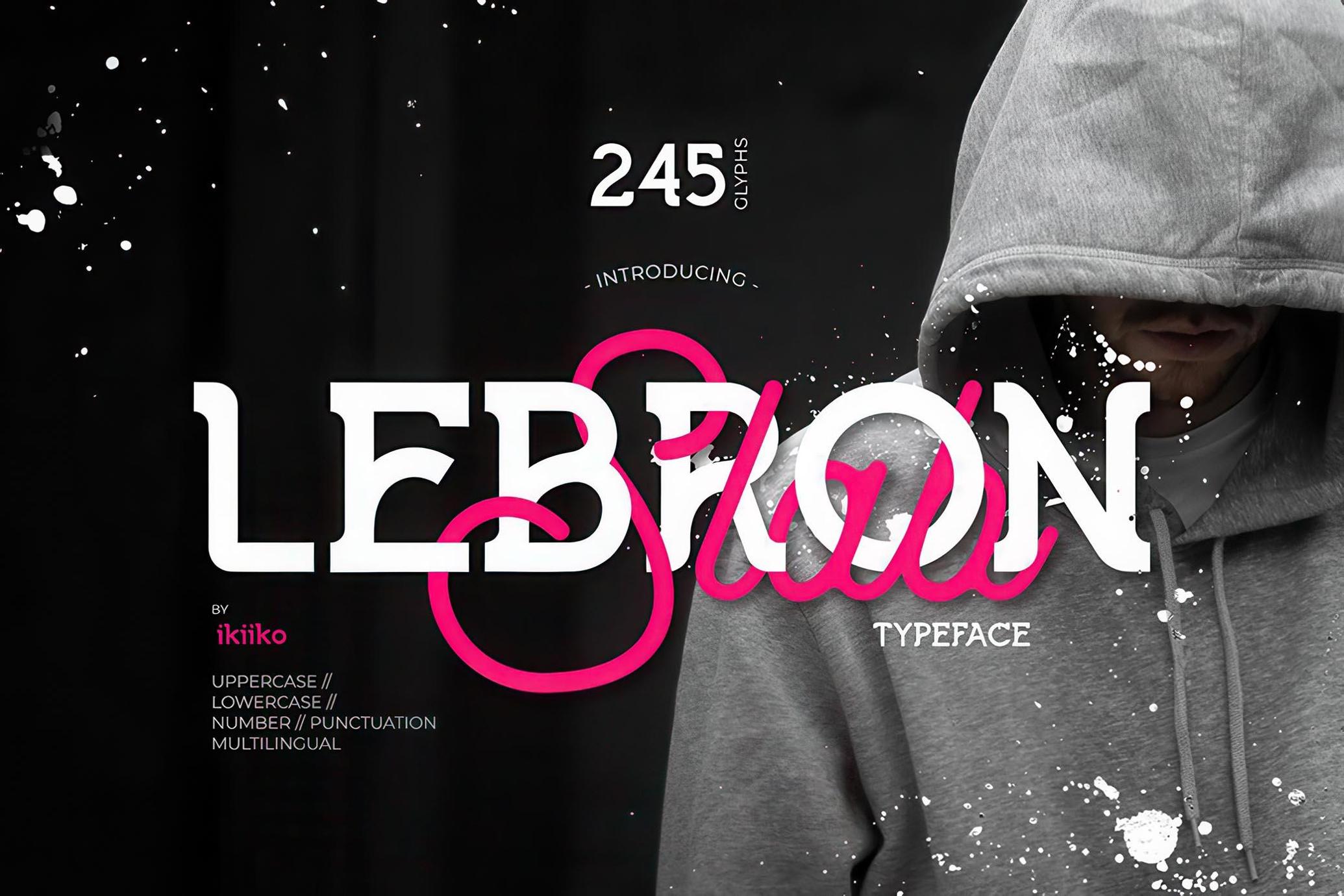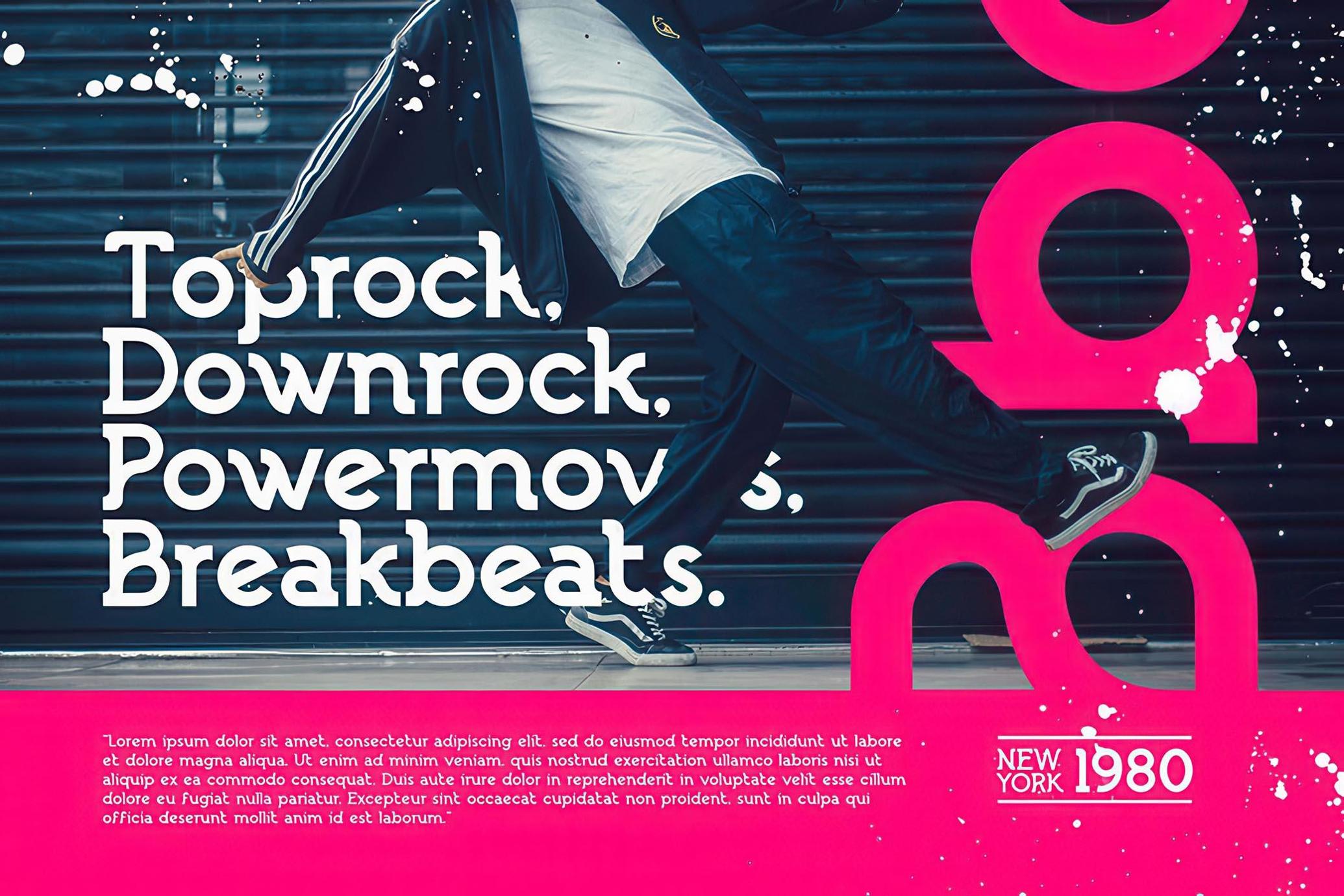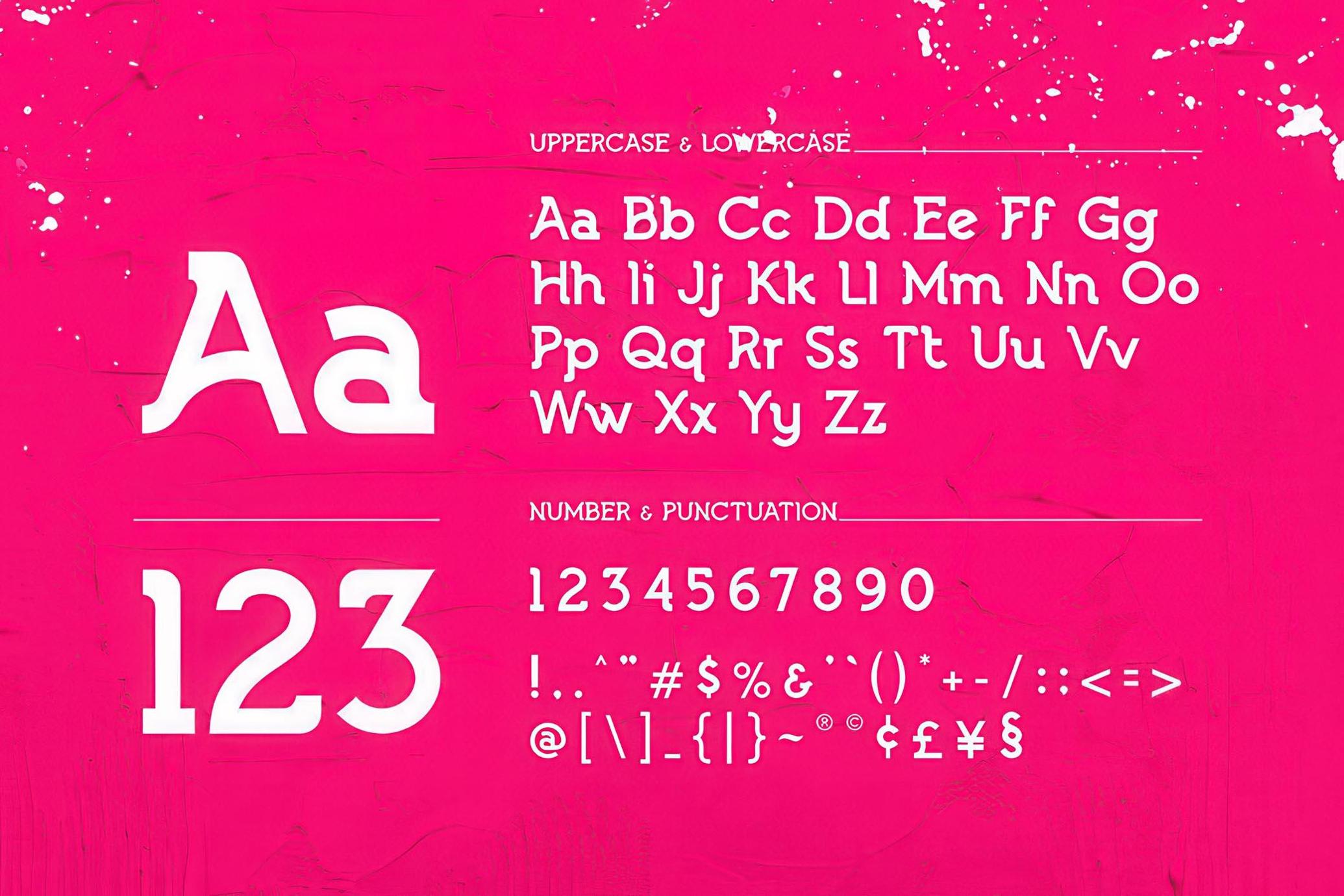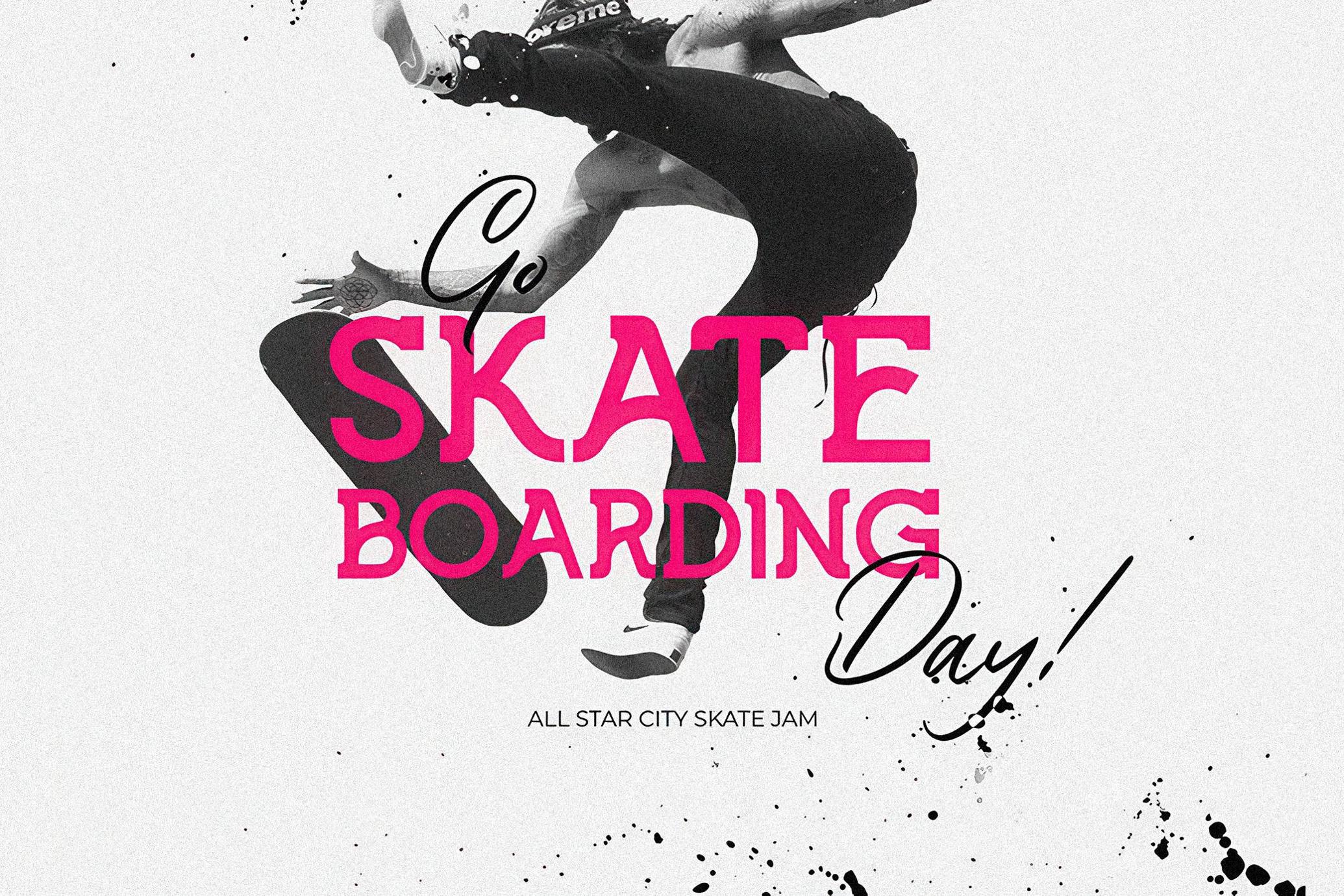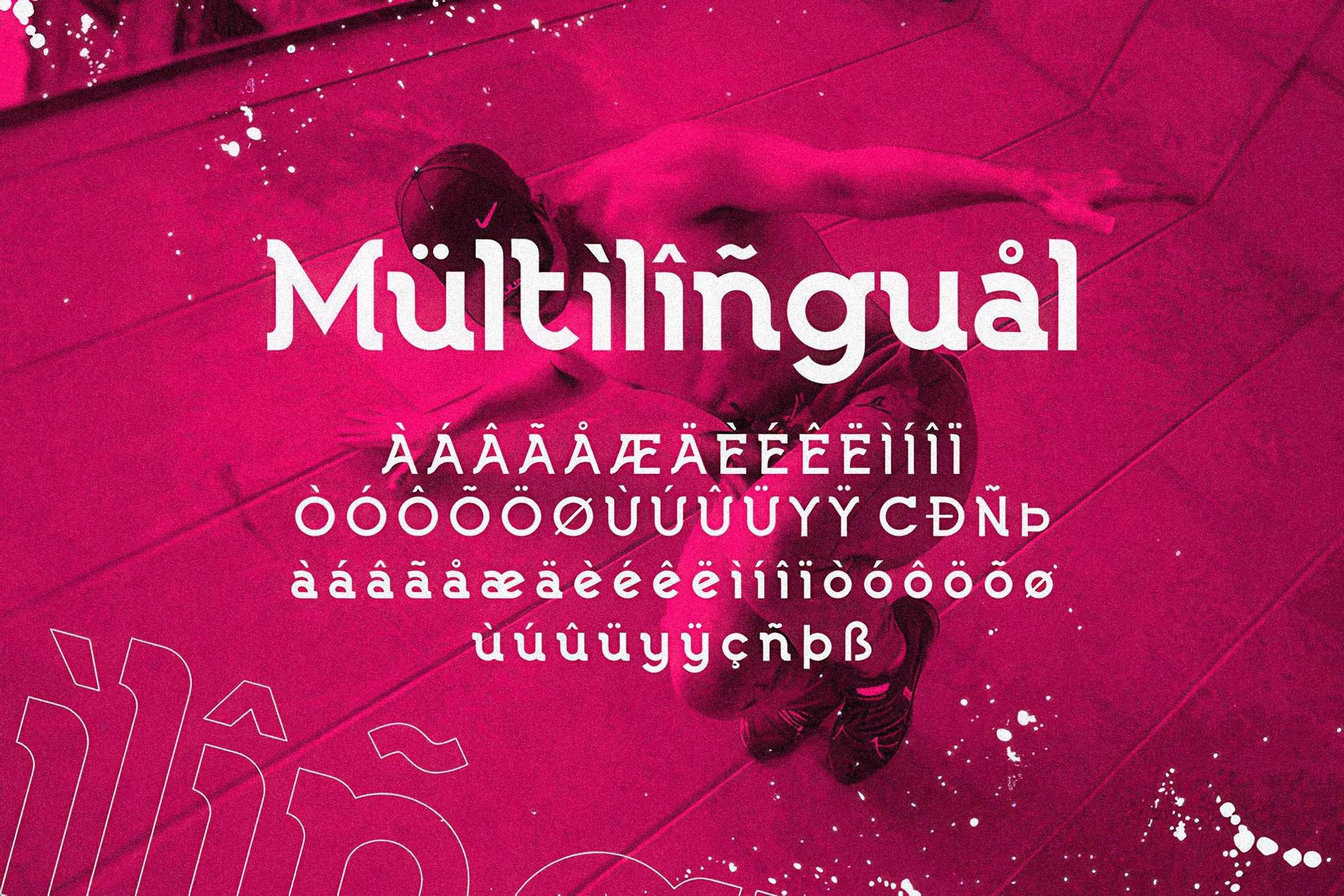
Lebron Slab - Modern Slab Font
Lebron Slab
A slab series font with geometric feel and modern look. Easy to use and delightfully expressive. Lebron Slab is strong and vibrant typeface. Excellent for headlines, caption, brand logo, street gear, t-shirt, school & university, and also good for sport aesthetic product.